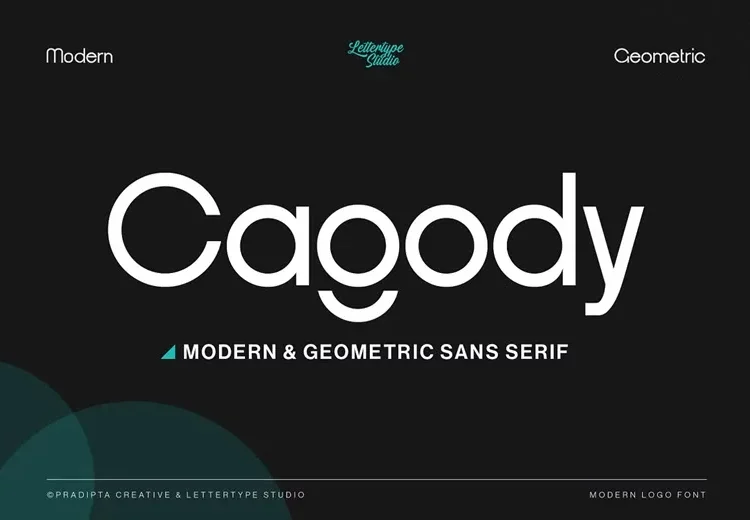
Cagody Font
Cagody is a geometric, modern sans serif typeface that offers a sleek and customizable design, making it the perfect choice for a wide variety of creative projects.
Its clean and sophisticated look makes it ideal for photography, watermarks, social media posts, advertisements, logos, branding, invitations, product designs, labels, stationery, wedding designs, product packaging, headers, and much more.
With its elegant simplicity and versatility, Cagody enhances the appeal of any project, giving it a refined, professional touch. Whether you’re designing for a special event or creating branding materials, Cagody delivers a polished and modern aesthetic that stands out.